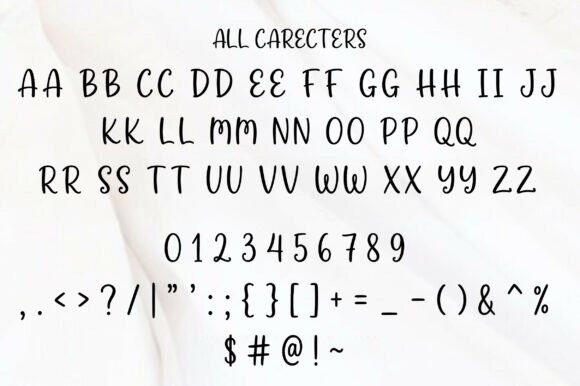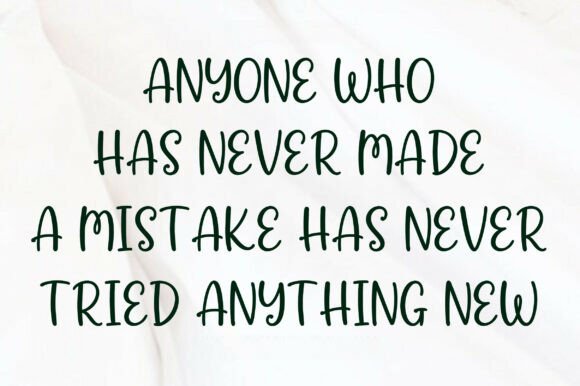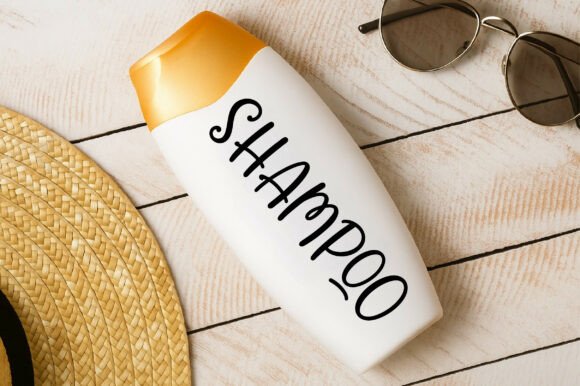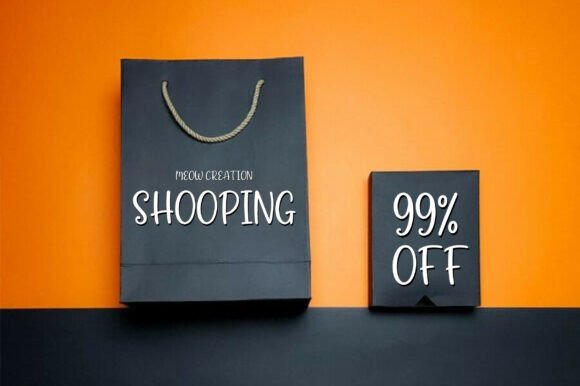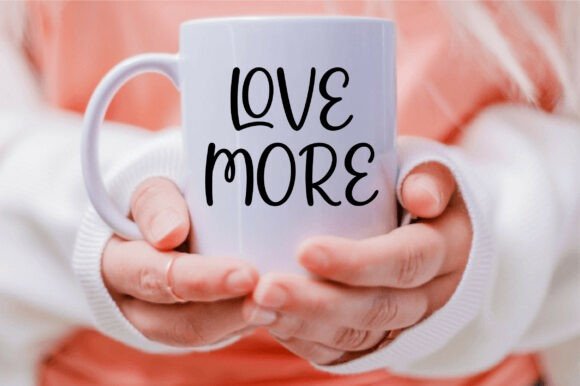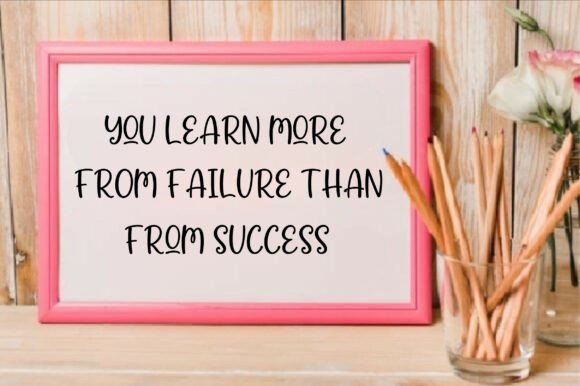
The Perfect Font to Brighten Up Your Designs
Have you ever stared at a blank canvas, struggling to come up with the perfect font to capture the essence of your project? We’ve all been there – the blank page staring back at us, begging for creativity. But what if you could infuse your designs with a dash of joy and personality?
Enter the Happy Doodle Font, a playful handwritten font that brings a smile to any design. With its smooth curves and natural, friendly style, this font is perfect for adding a touch of whimsy to your projects. Whether you’re creating cute, trendy, or casual designs, Happy Doodle brings a warm and joyful touch that’s sure to delight. As a designer, you know the value of a font that’s both easy to read and adds personality – and Happy Doodle Font delivers on both fronts.
Happy Doodle Font Key Features
- Font Family: A unique and playful handwritten font with various style options.
- Unique Characteristics: Features whimsical doodles, hand-drawn elements, and a touch of personality, making it perfect for adding a creative touch to designs.
- Style Options: Includes multiple styles, such as bold, italic, and regular, to cater to different design needs.
Designer Review: Happy Doodle Font
I was excited to dive into the Happy Doodle Font and see what it had to offer. Overall, I’d say it’s a cute and playful addition to any design project.
- Unique and quirky aesthetic that adds personality to designs
- Wide range of character variations to keep designs interesting
- Easy to read and use, even at smaller font sizes
One of the things that really stood out to me was the attention to detail in the font’s design. The little doodles and illustrations add a fun touch and help to break up text in a visually appealing way.
- Limited font sizes and weights, which may limit its use in certain design applications
- Not ideal for body text, as it can be a bit too playful and distracting
- May not be the best choice for formal or professional designs
Overall, I think the Happy Doodle Font is a great addition to any designer’s toolkit. It’s perfect for projects where you want to add a bit of whimsy and personality. Just be mindful of its limitations and use it thoughtfully.
The Happy Doodle Font is perfect for creating playful and whimsical designs, such as children’s book illustrations, party invitations, and social media graphics. It’s also great for adding a personal touch to wedding invitations, baby shower decorations, and other special occasion designs.